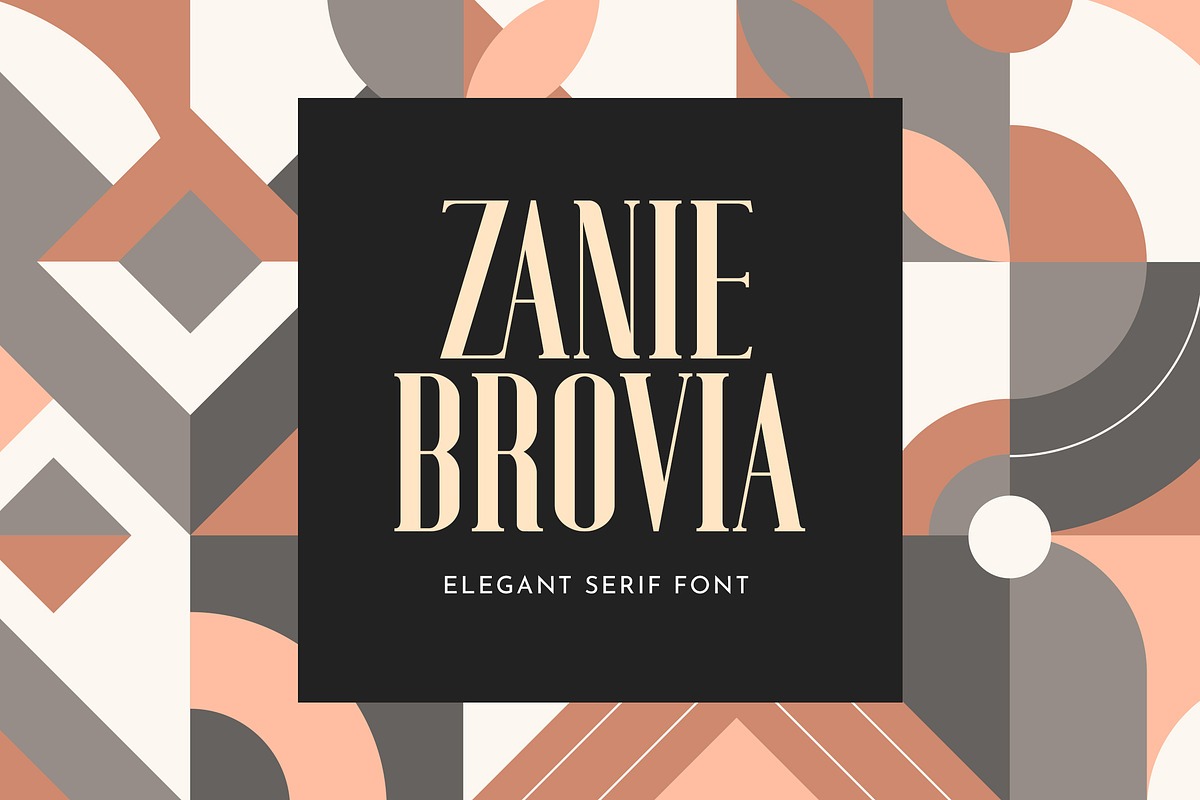
Zanie Brovia – Elegant Serif Font
Zanie Brovia – Elegant Serif Font is a premium-quality font developed to enhance your work with a polished, modern, and visually elevated look. Zanie Brovia Display Serif Font. Modern Serif font that feels beautiful classy, elegant, and modern. This font is ideally suited for a wide variety of projects, such as signature, stationery, logo, wedding, typography quotes, magazine or book covers, website headers, clothing, branding, packaging design, and more. Also, fashion-related branding or editorial design displays both masculine and feminine qualities.